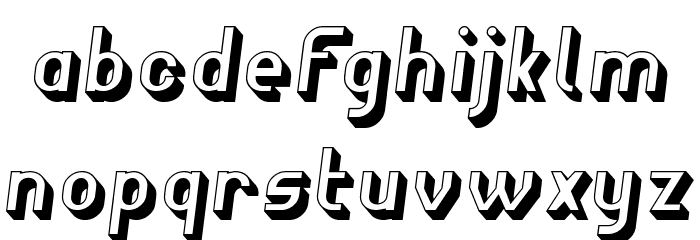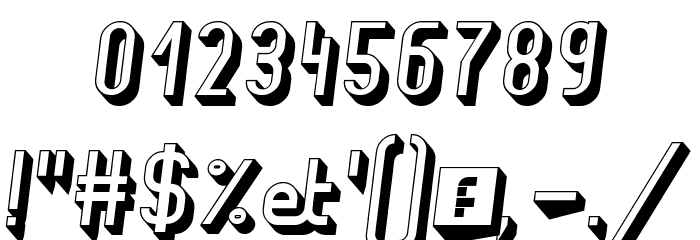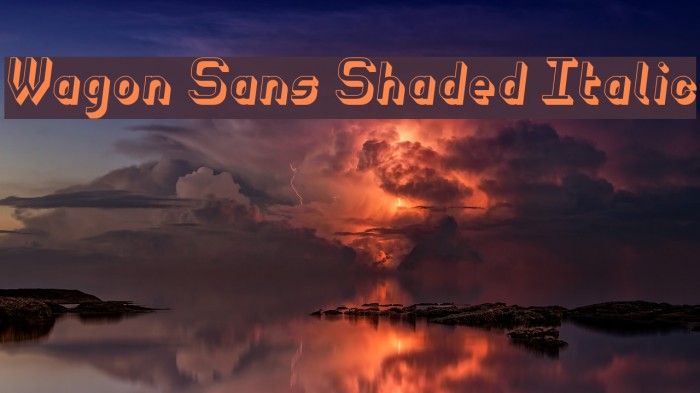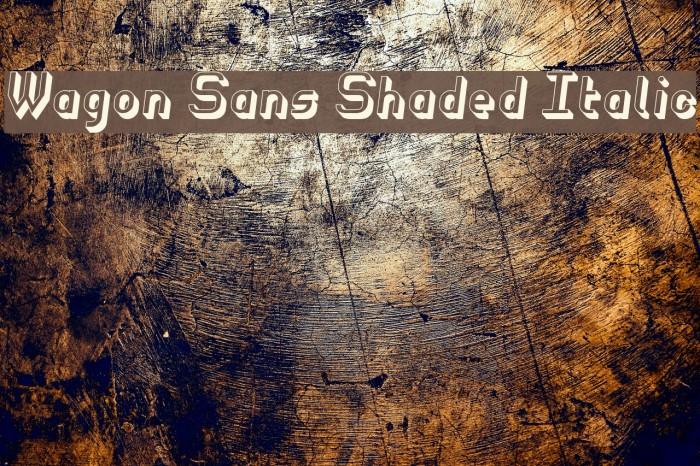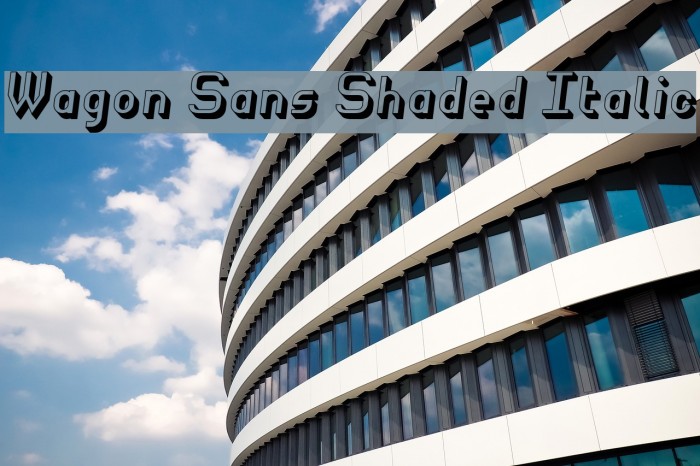
Wagon Sans Shaded Italic Font
This font features a bold and dynamic design with a shaded effect that gives it a three-dimensional appearance. The letters are italicized, adding a sense of movement and fluidity. The uppercase and lowercase characters maintain a consistent style, with clean lines and a modern aesthetic. The numerals and special characters are equally bold, ensuring readability and impact. The shading adds depth, making it suitable for eye-catching designs.
A bold, italicized font with a shaded, three-dimensional effect.
- Proposed Projects: Ideal for posters, headlines, logos, and any project requiring a striking, modern look.